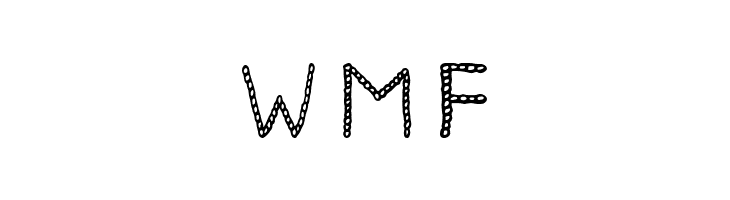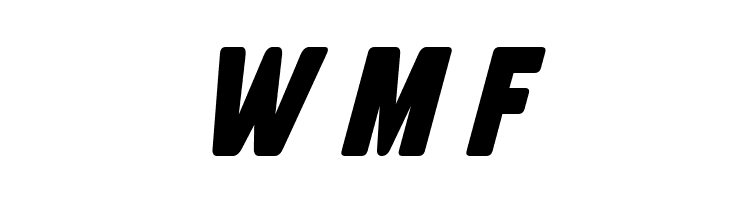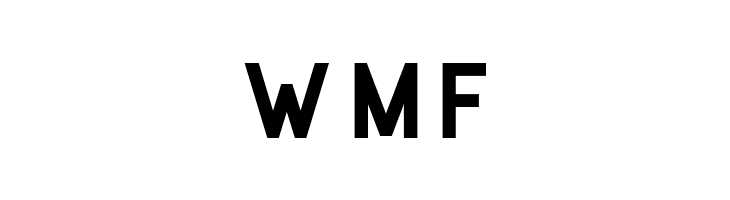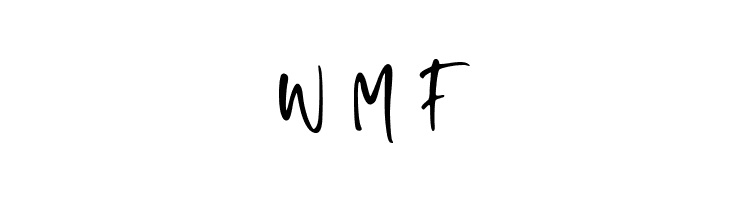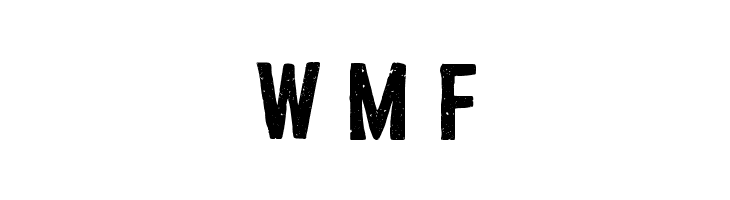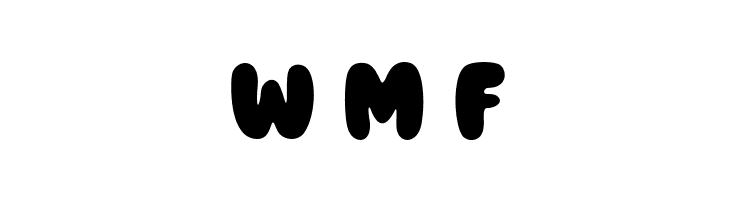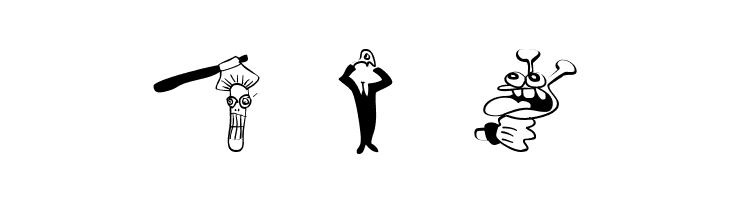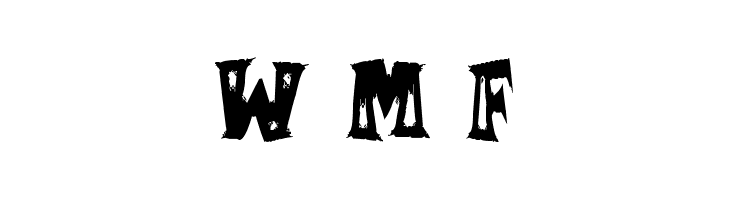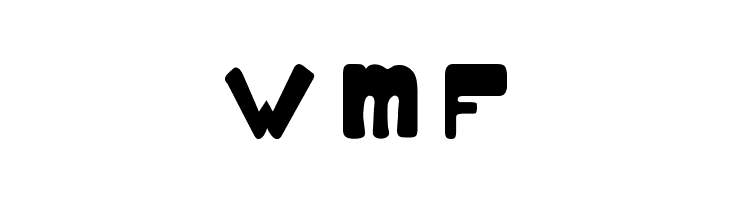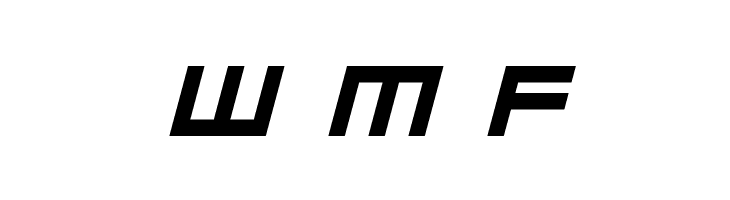
A playful, stone-textured decorative font with bold, uppercase characters.
A bold, distressed font with a vintage, textured appearance.
A playful, hand-drawn font with bold, rounded characters and a whimsical style.
A bold, expressive handwritten font with dynamic strokes and a casual feel.
A bold, geometric font with a futuristic, angular design.
Cartoonish, character-based decorative font with playful illustrations.
A distressed, grunge-style font with a textured, urban appearance.
A bold, dripping font with a horror-themed style.
A playful, hand-drawn font with quirky, uneven strokes and artistic flair.
A bold, striped collegiate-style font with a nostalgic varsity feel.
A bold, decorative font with a layered, dimensional style.
A dynamic and expressive handwritten font with fluid, cursive letterforms.
A modern, narrow font with elongated characters and a sleek design.
Bold, italicized font with a modern, impactful style.
A bold, geometric font with a zigzag pattern and consistent thickness.
A playful, bold font with rounded edges and a friendly style.
A bold, fiery font with dynamic flame effects on each character.
A bold, jagged font with a horror-themed, distressed appearance.
A playful, handwritten script font with fluid, connected letters and dynamic strokes.
A playful, decorative font with a watermelon seed pattern, perfect for fun and summery projects.
A bold, modern sans-serif font with clean lines and geometric structure.
A playful, handwritten font with a casual and dynamic style.
A playful, bold, and rounded font with smooth curves.
A bold, geometric font with a futuristic, angular design.
A bold, italicized font with a modern, angular design.
A chunky, rounded, playful display font with a bubbly style.